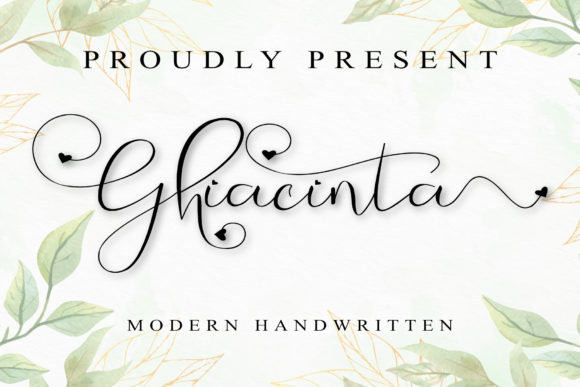
Feast your eyes on Ghiacinta Font, the captivating handwritten font that oozes elegance and charm. Created by the talented andreyfontdesign, Ghiacinta is a visual masterpiece that will elevate your UI/UX designs to new heights. Immerse yourself in its timeless beauty and let your creativity soar.
Ghiacinta's graceful strokes and smooth lines evoke a sense of sophistication and fluidity. Its varying baseline and gorgeous glyphs add a touch of playfulness and intrigue, making it the perfect choice for projects that demand attention. Whether you're designing a user interface, a logo, or a social media post, Ghiacinta will make your words dance off the page.
Beyond its aesthetic appeal, Ghiacinta is also incredibly versatile. Its extensive character set, including stunning alternates and swashes, empowers you to explore a wide range of design possibilities. Experiment with different combinations to create unique and eye-catching compositions that will leave a lasting impression on your audience.
Step into the world of Ghiacinta and unlock your creative potential. Its PUA encoding makes it a breeze to access all of the glyphs and swashes, ensuring effortless integration into your design software. Let Ghiacinta's timeless charm captivate your audience and transform your designs into works of art.